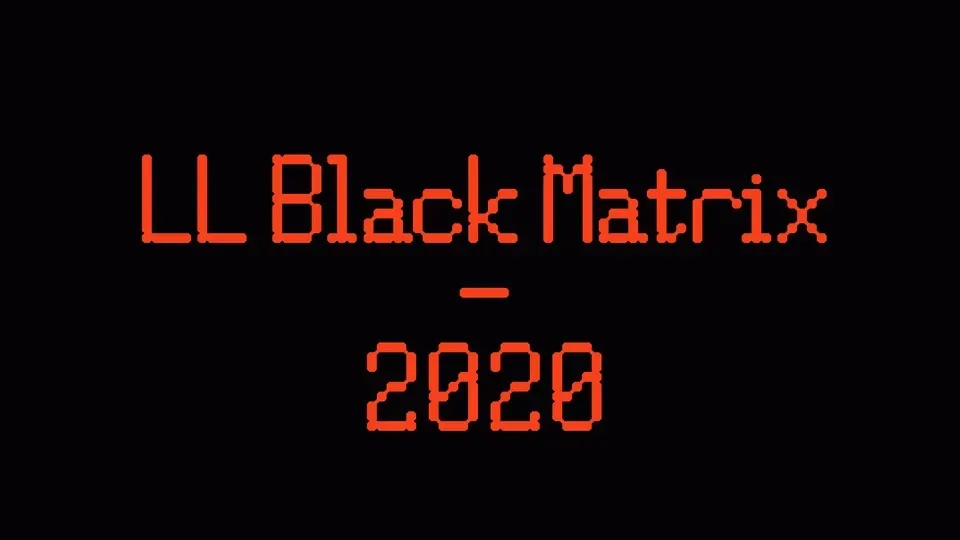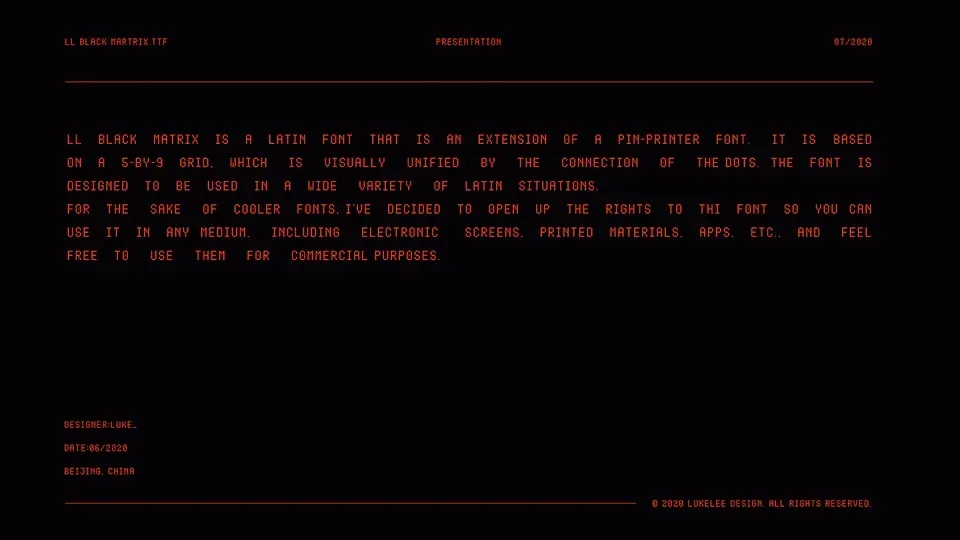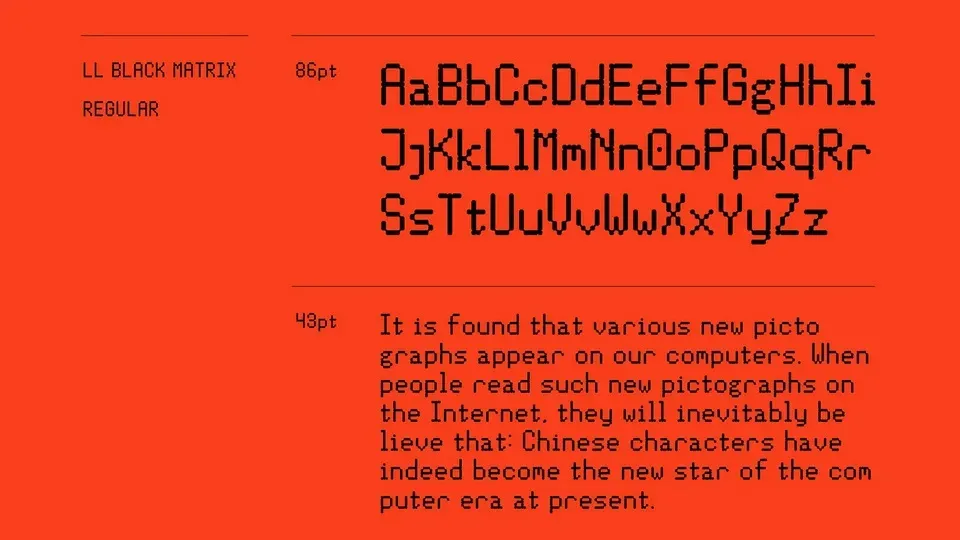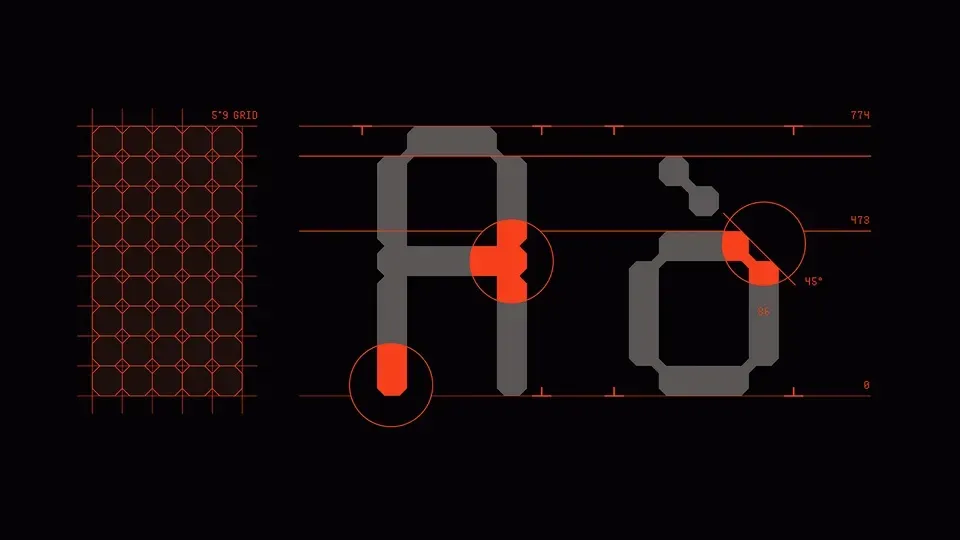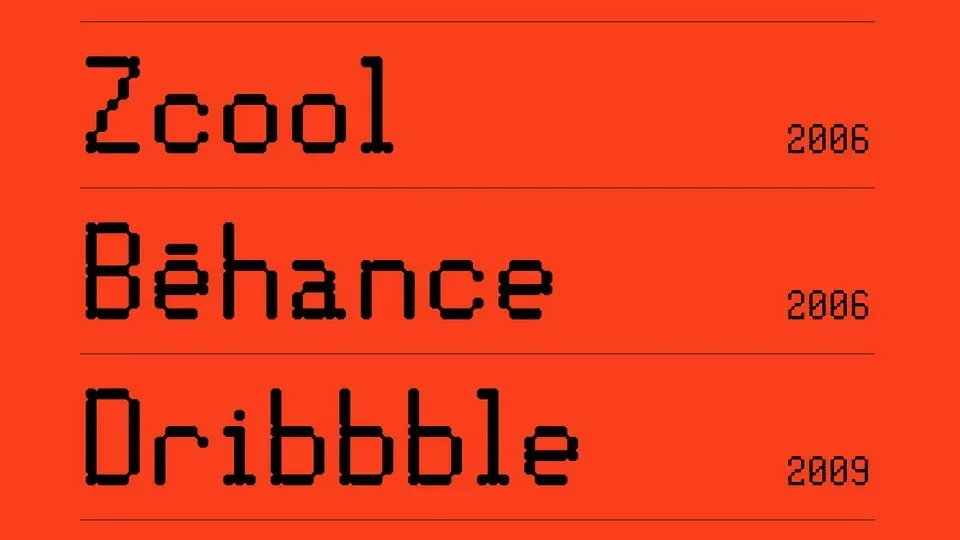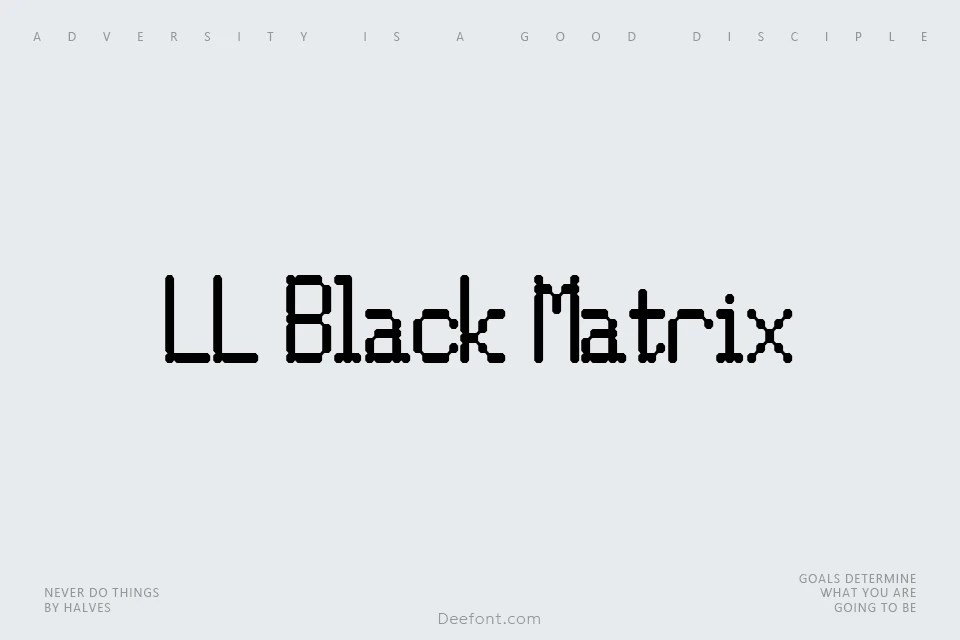
LL Black Matrix Font
LL Black Matrix Font is a futuristic and bold typeface designed to evoke the aesthetics of digital technology and retro computing. Its pixelated, grid-like structure creates a distinctive visual style reminiscent of old-school computer screens and matrix-inspired designs. Perfect for tech-related projects, gaming, branding, or experimental layouts, LL Black Matrix stands out with its unique combination of modernity and nostalgia. The font’s sharp edges and geometric patterns make it ideal for creating eye-catching headlines, posters, and digital artwork. With its strong visual presence, LL Black Matrix Font adds a dynamic and innovative touch to any creative project.